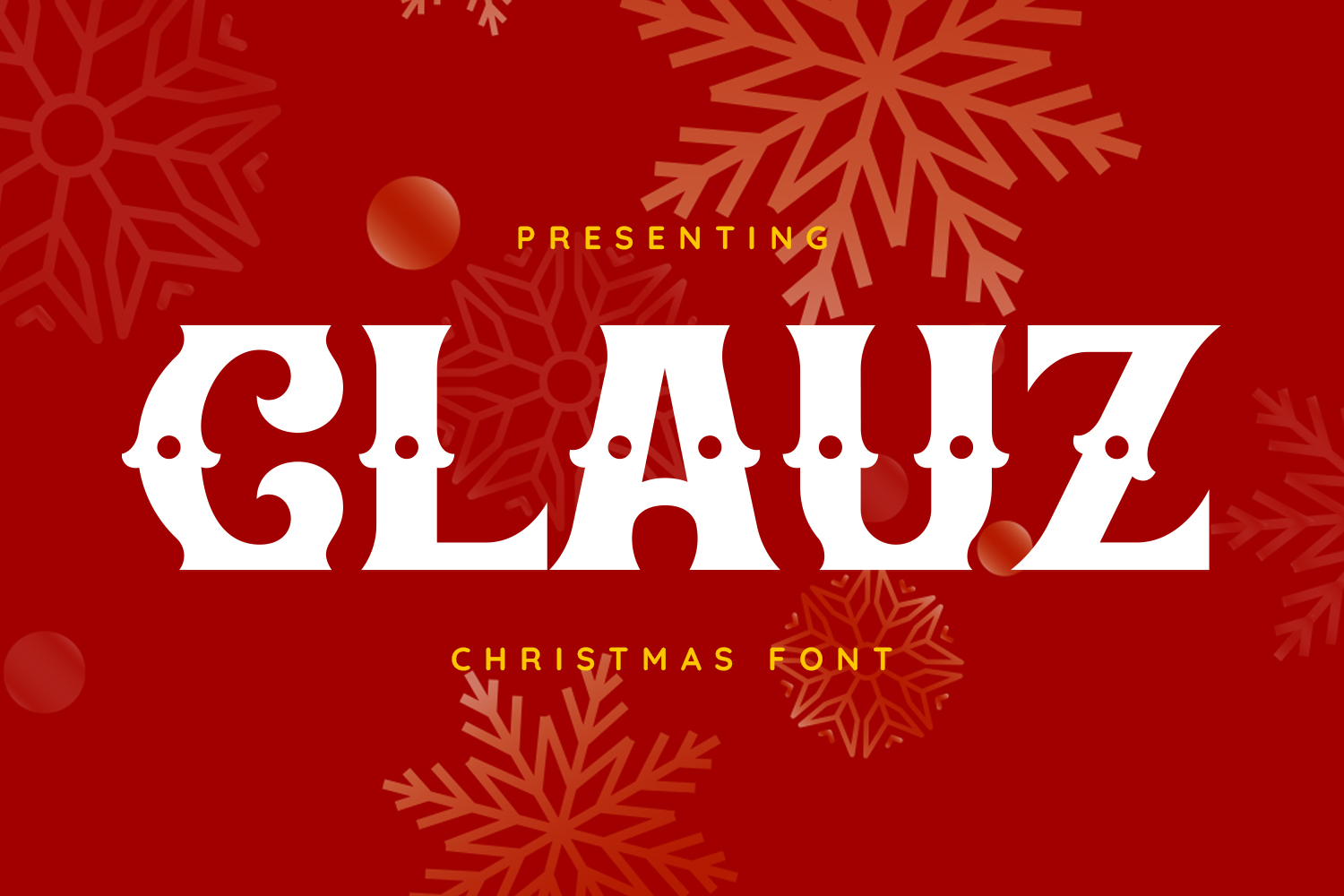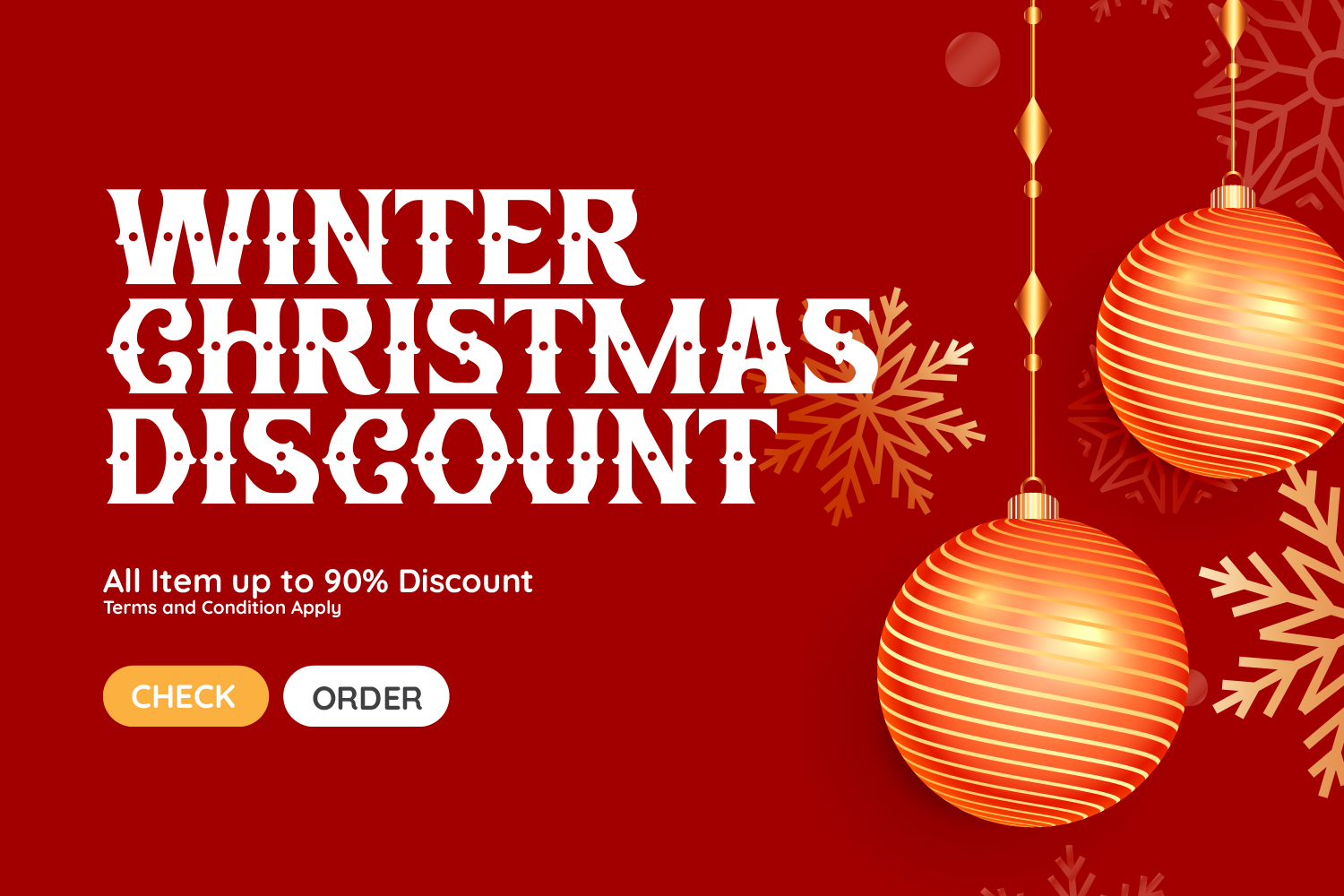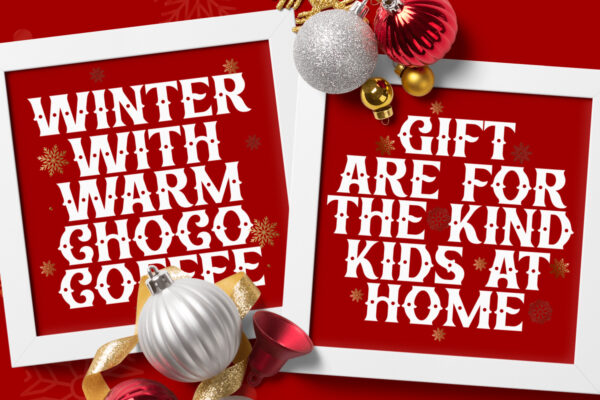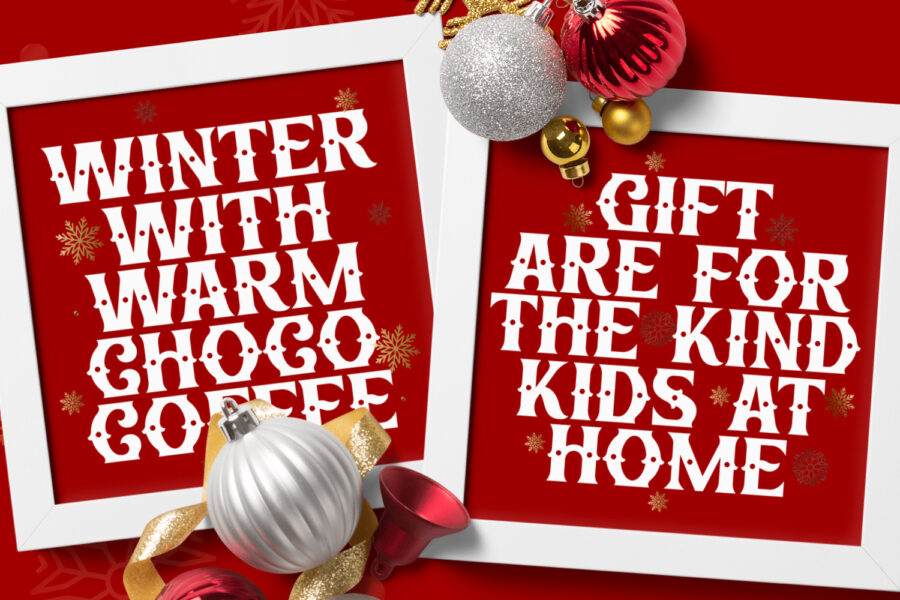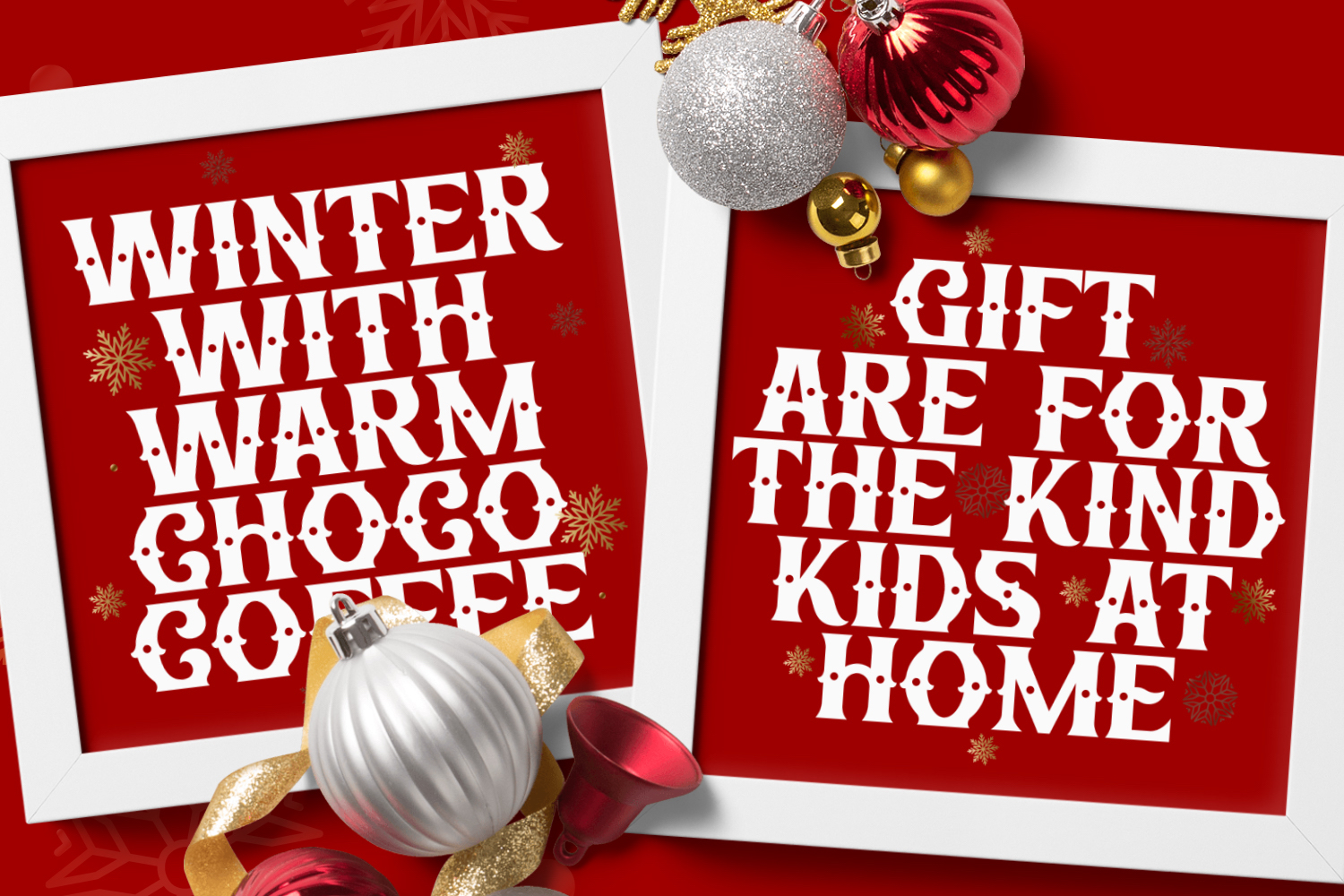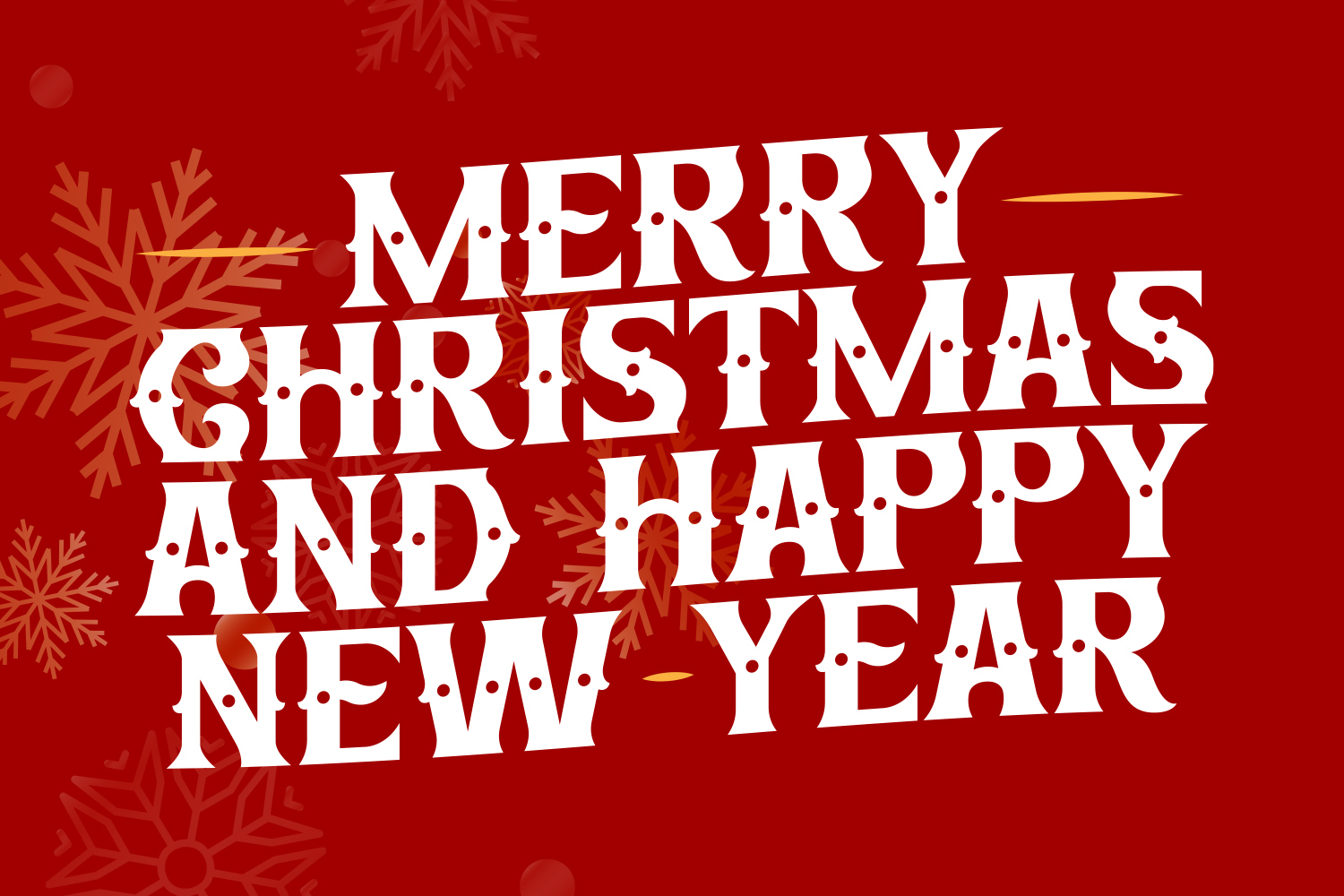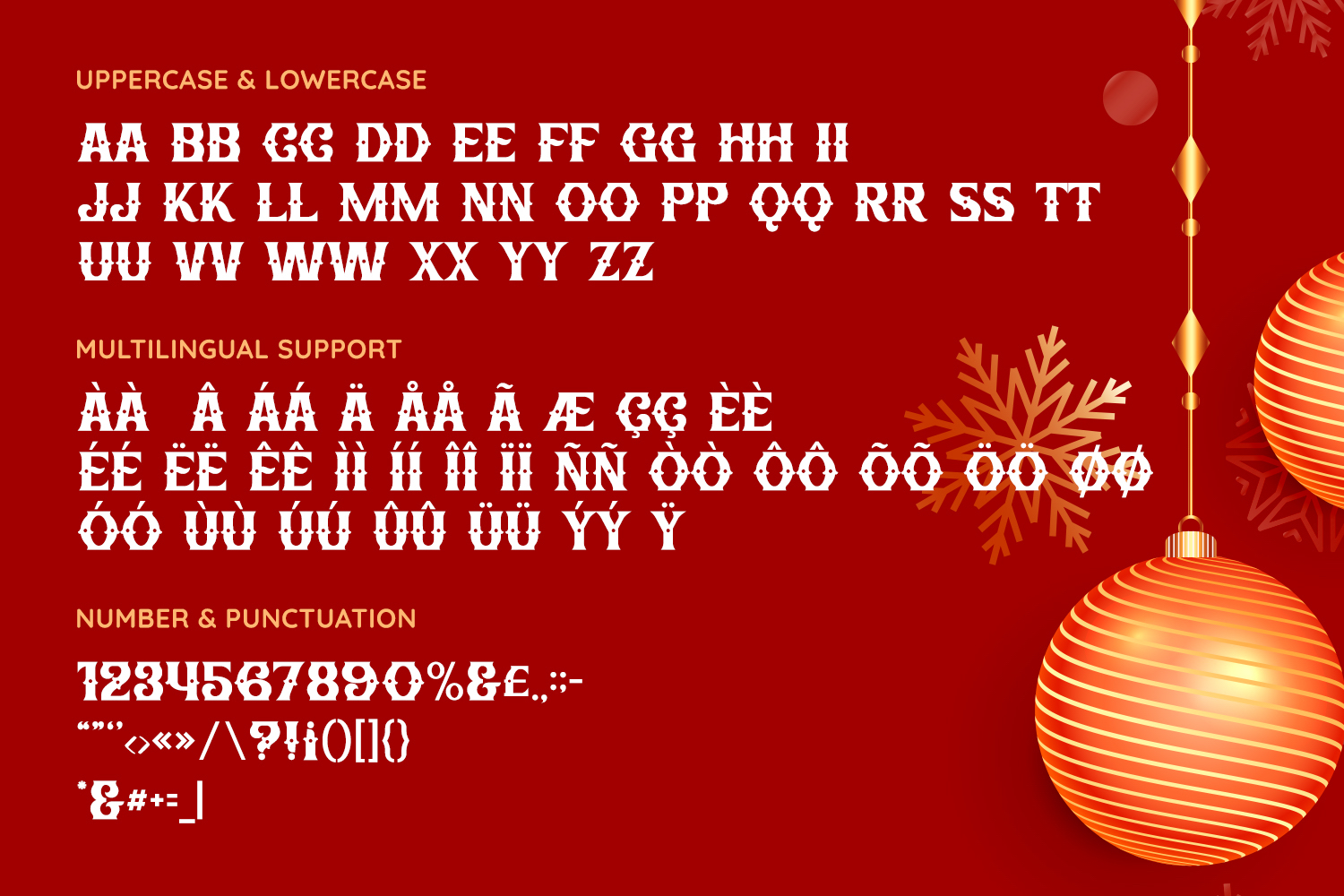
Clauz is a whimsical and bold display font crafted especially for the holiday season. With its distinctive cut-out shapes that resemble Santa’s jolly face, Clauz adds instant festive cheer to any design. Whether you’re creating Christmas cards, sale banners, or winter event posters, this font is perfect for delivering joy and excitement in a playful yet impactful style.
This font features all uppercase characters with multilingual support, numbers, and a variety of punctuation marks. Clauz brings a nostalgic yet modern vibe, ideal for brands or creatives looking to evoke warmth, fun, and holiday magic. Its thick, strong letterforms make it highly legible and perfect for headlines or branding that wants to make a joyful statement.
Clauz